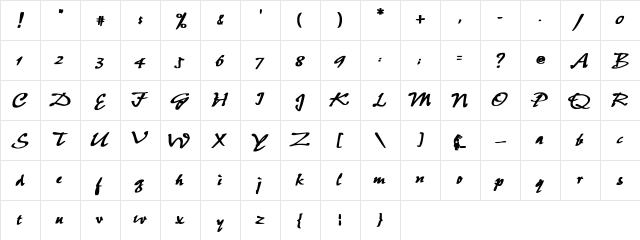
Pepita Bold Bold
Design Context for Pepita Bold Typeface
Pepita Bold is a composed and adaptable typeface that performs quietly and consistently across a wide range of design contexts. Its bold stroke weight gives it real presence on the page.